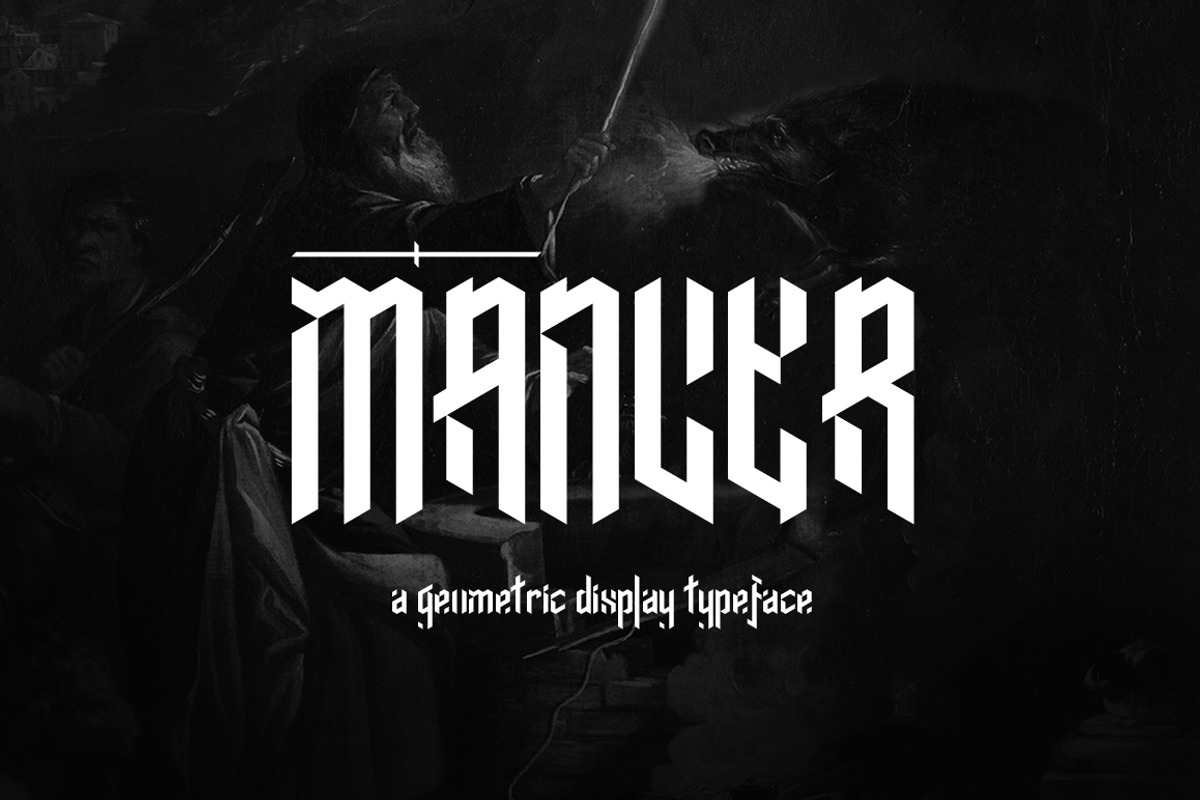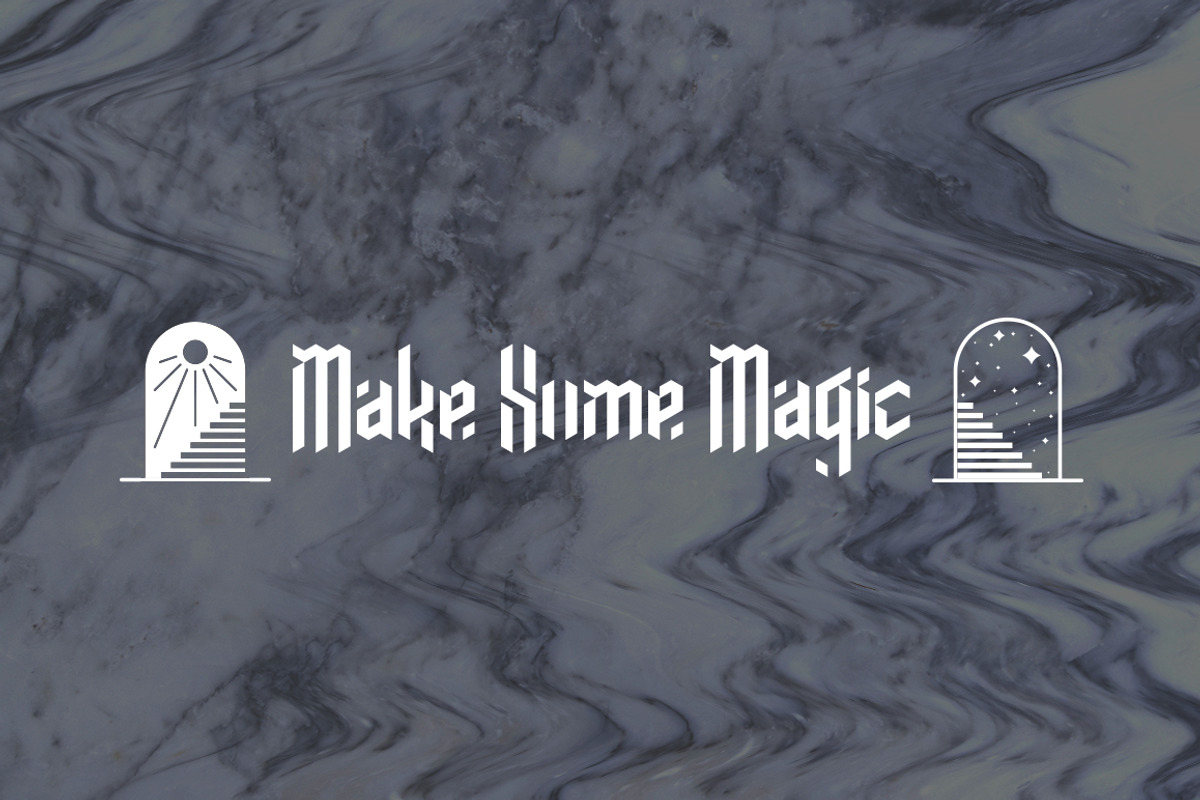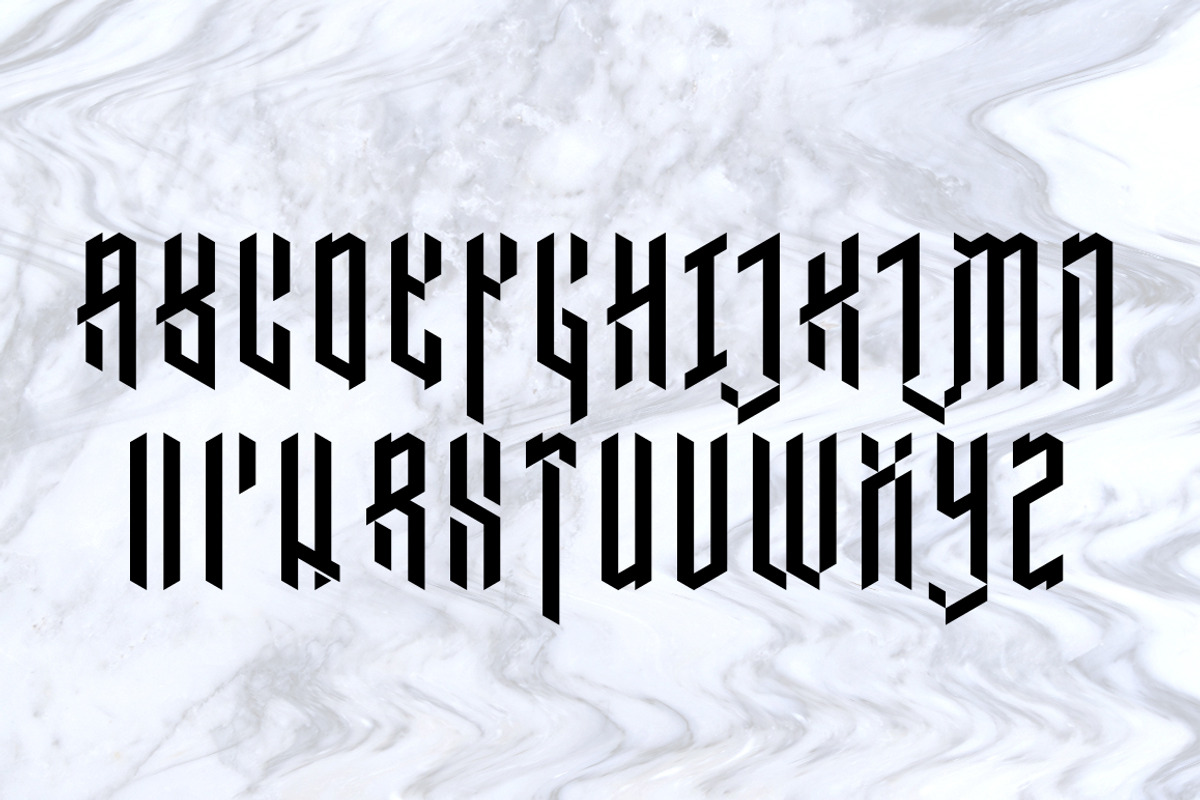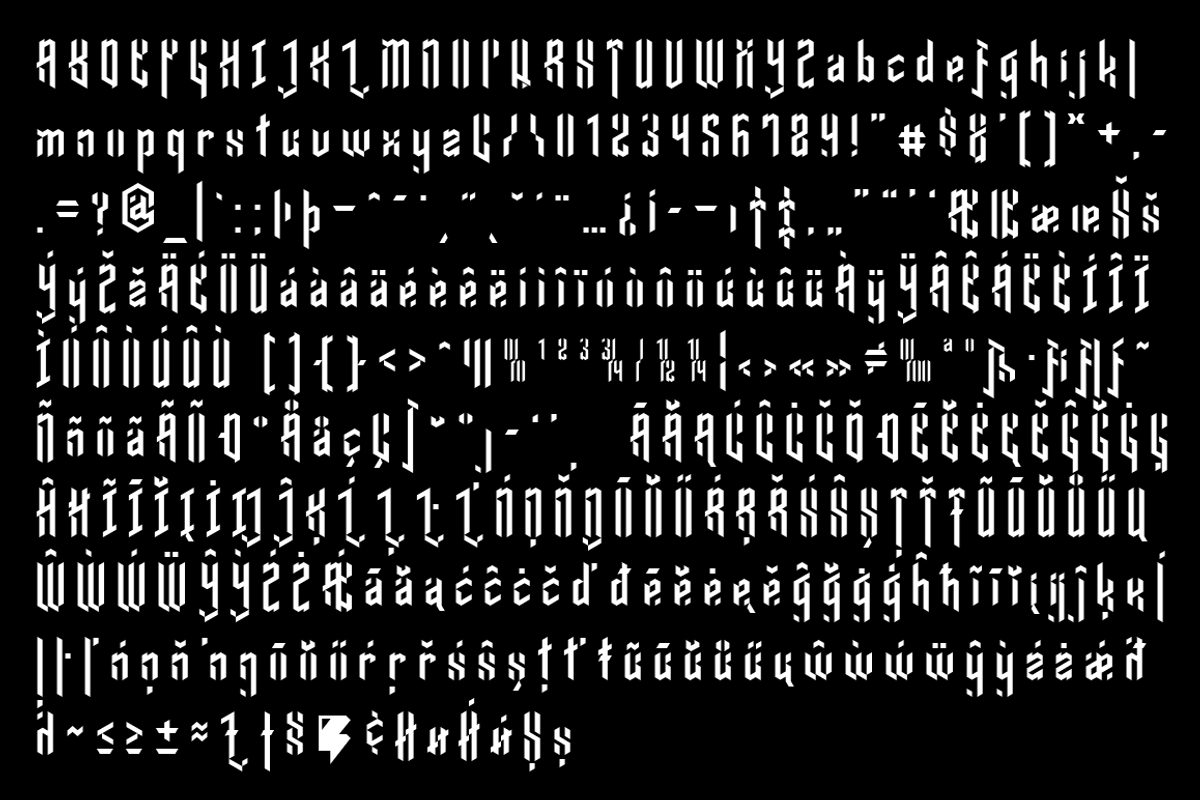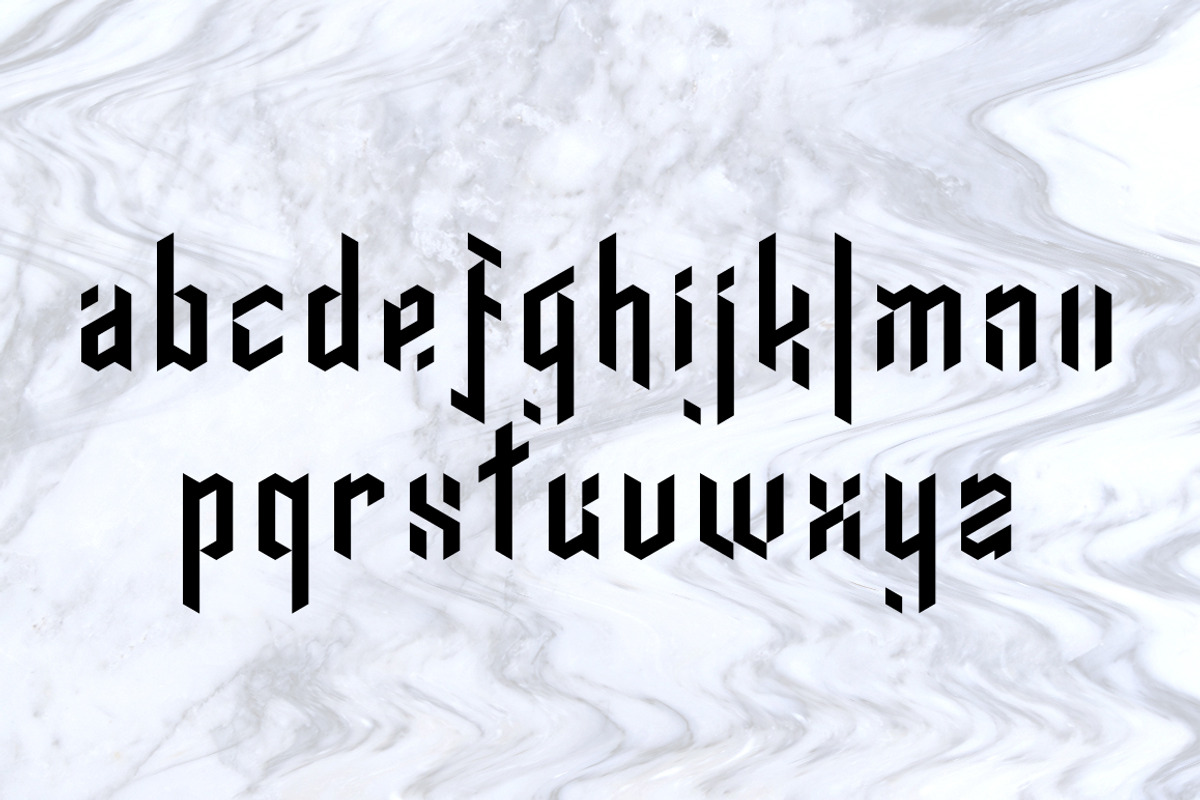
Mancer Typeface
Mancer Typeface by Badspark is a font selected for branding, posters, packaging, typography.
- • A geometric Blackletter typeface • Capital and Lowercase • An expansive character set that covers a wide range of Latin based languages Ma
Why Mancer Typeface is worth a look
Mancer Typeface by Badspark fits naturally into Branding, posters, packaging, typography.